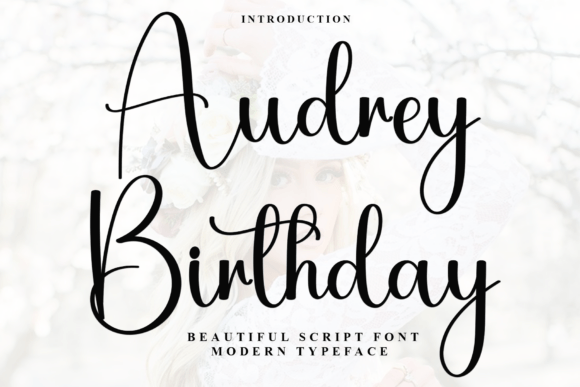
The Audrey Birthday Font: A Designer’s Dream Come True
I’ll never forget the time I was working on a wedding invitation project, and my client asked for a font that was elegant, stylish, and conveyed a sense of whimsy. I scoured the internet, tried out dozens of fonts, but nothing seemed quite right. That was until I stumbled upon the Audrey Birthday font. It was like a breath of fresh air – the perfect blend of sophistication and playfulness. In this article, I’ll share my experience with this beautiful script font, and explore its features, uses, and alternatives.
So, what makes the Audrey Birthday font so special? Here are a few things I love about it:
- ✨ Elegant and stylish: The Audrey Birthday font is perfect for designs that need a touch of sophistication, such as wedding invitations, thank you cards, and quotes.
- ✅ Highly legible: Despite its script nature, the font is surprisingly easy to read, even at smaller sizes.
- 🤔 Limited use in body text: While the font is beautiful, it’s not ideal for long blocks of body text. It’s best used for headings, titles, or short paragraphs.
- ⚠️ May not work well in all languages: As with any script font, some characters may not work well in certain languages. Be sure to test the font with your specific language needs.
- Kaitlynn Script: This font has a similar elegant and playful feel to Audrey Birthday, but with a slightly more rustic edge.
- Alex Brush: This font has a more whimsical and hand-painted feel, making it perfect for designs that need a touch of personality.
- Pacifico: This font has a more relaxed and beachy vibe, making it perfect for designs that need a laid-back feel.
- Great Vibes: This font has a similar script feel to Audrey Birthday, but with a more modern and edgy twist.
The Story Behind Audrey Birthday
The Audrey Birthday font was designed by a team of typographers who wanted to create a font that was both elegant and playful. Inspired by classic script fonts, they added a modern twist to create a font that’s perfect for designs that need a touch of sophistication. The font is named after Audrey Hepburn, the iconic actress known for her timeless elegance and style.
- Q: Is the Audrey Birthday font suitable for body text?
- A: No, the Audrey Birthday font is best used for headings, titles, or short paragraphs. It’s not ideal for long blocks of body text.